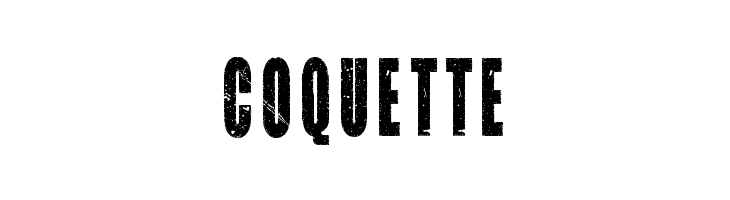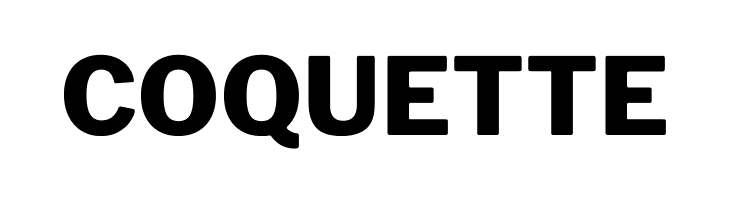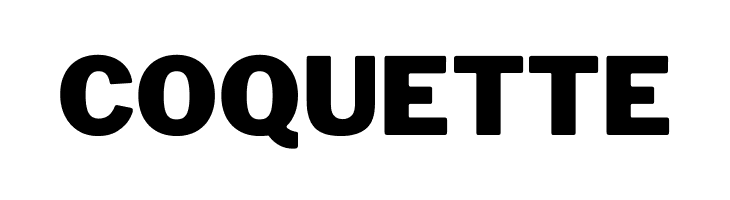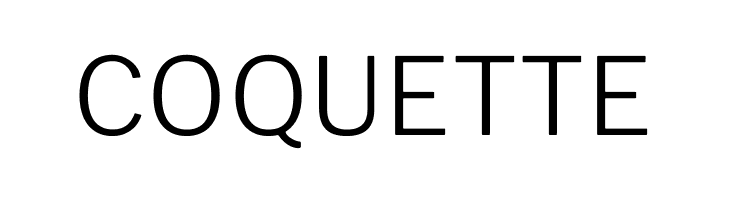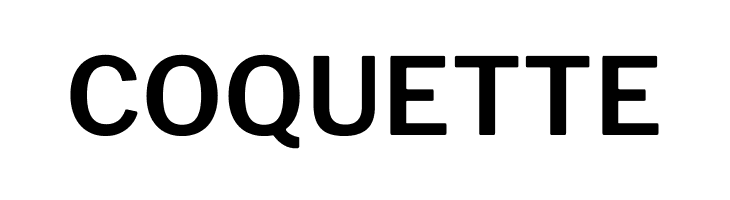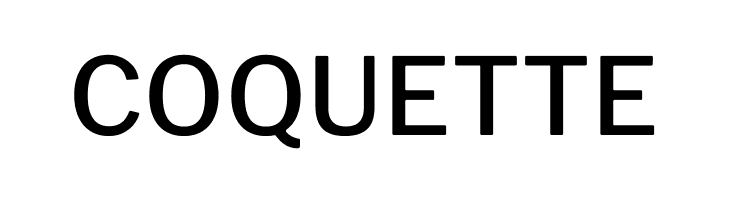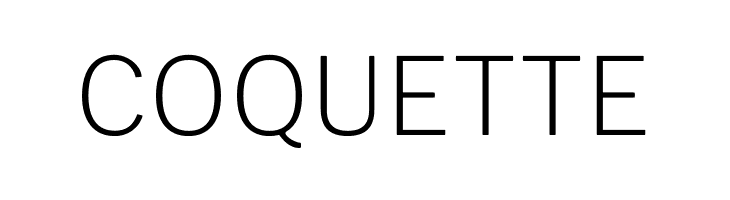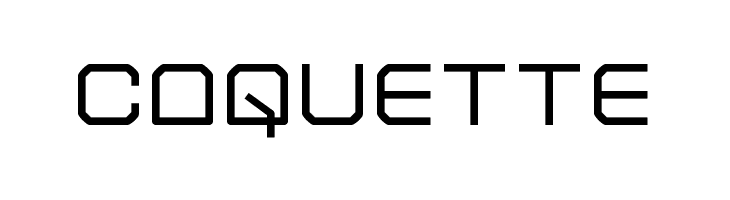
A bold, modern font with strong, thick strokes and high contrast.
A modern, extra bold sans-serif font with clean lines and excellent readability.
A clean, modern sans-serif font with an extra light weight and geometric influence.
A modern, light sans-serif font with clean lines and balanced proportions.
A modern sans-serif font with clean lines and excellent readability.
A modern, geometric sans-serif font with balanced proportions and clear legibility.
A modern, semi-bold sans-serif font with clean lines and balanced proportions.
A clean, modern typeface with thin, geometric strokes and balanced proportions.
A bold, distressed font with a textured, grunge appearance.
A modern, geometric font with a futuristic and technical style.